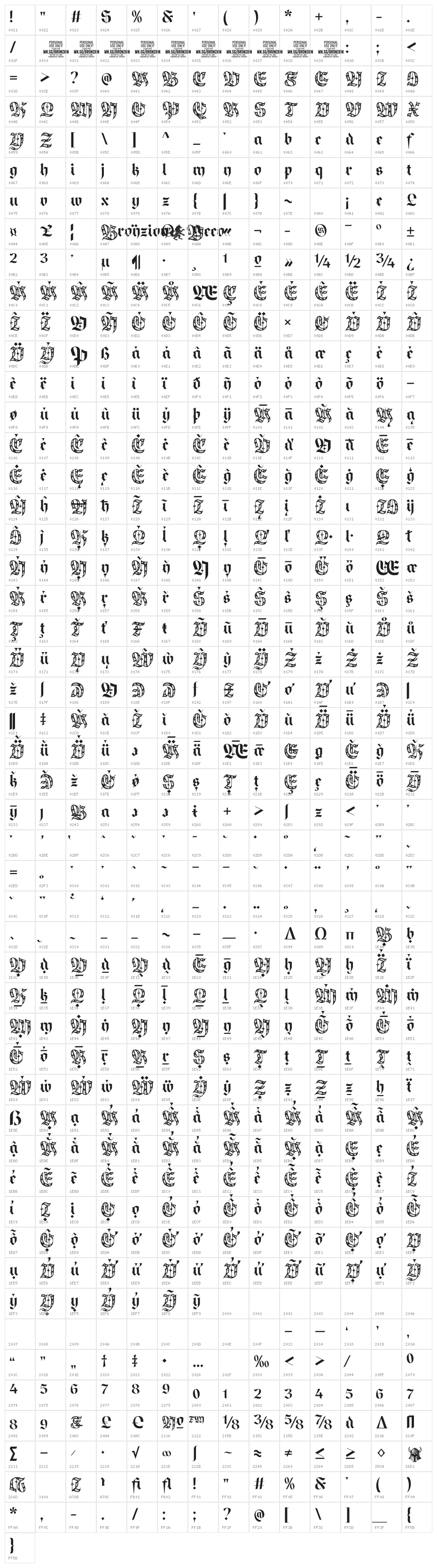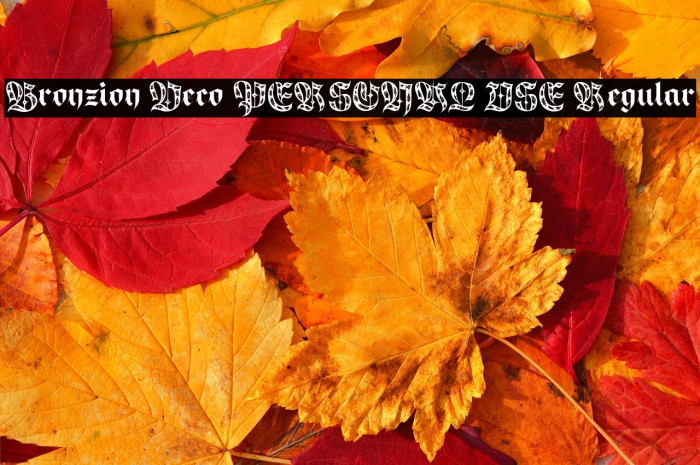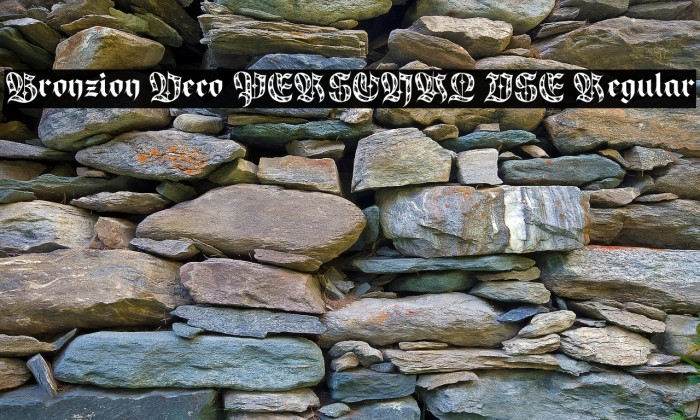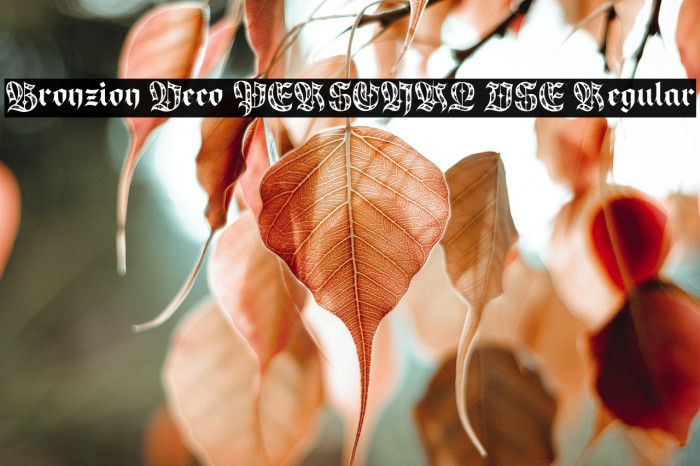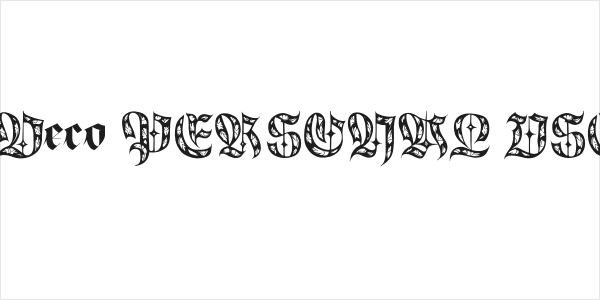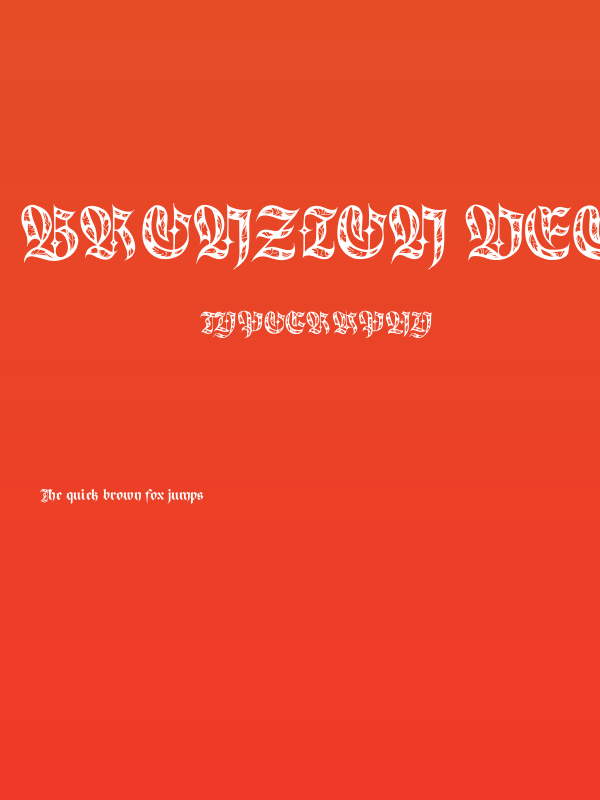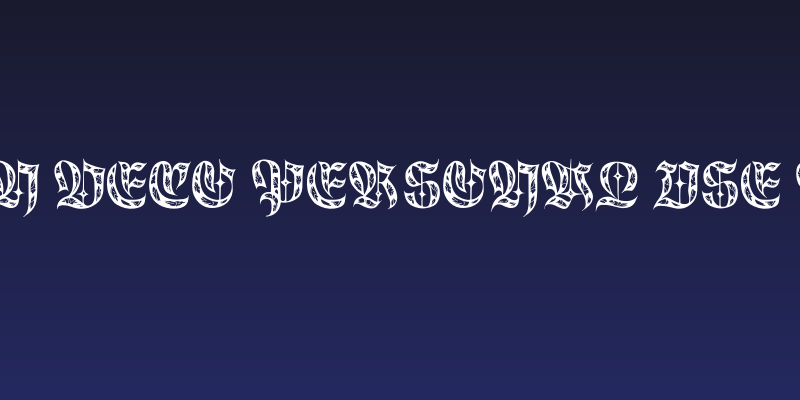
Bronzion Deco PERSONAL USE Regular Font
Bronzion Deco PERSONAL USE Regular Description
This font features a bold and intricate design, reminiscent of traditional blackletter styles with a modern twist. The uppercase letters are highly decorative, with elaborate curves and sharp angles that create a sense of movement and complexity. The lowercase letters maintain a more straightforward, yet still ornate appearance, providing a nice contrast to the uppercase. The numbers and special characters follow the same decorative theme, ensuring consistency across all characters. This font's unique style makes it stand out, perfect for projects that require a touch of elegance and historical flair.
| Proposed Projects | Ideal for vintage-themed designs, posters, book covers, branding, and any project that requires a historical or gothic aesthetic. |